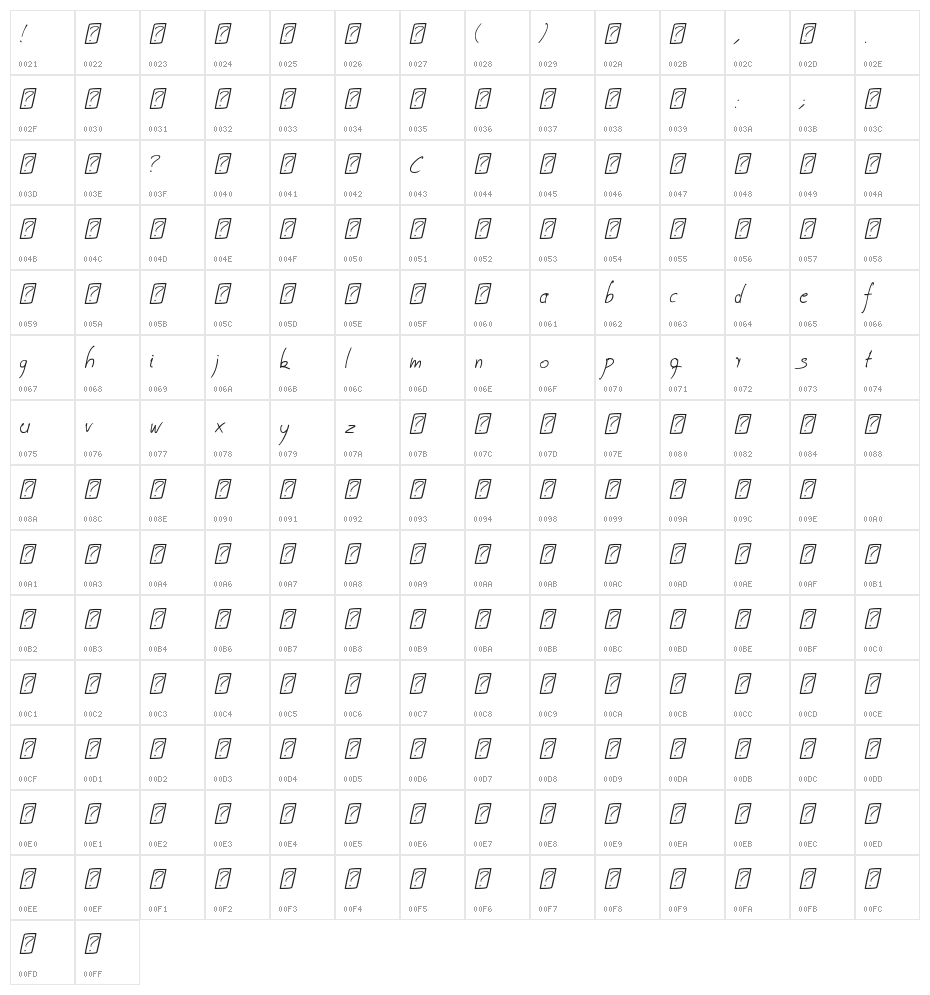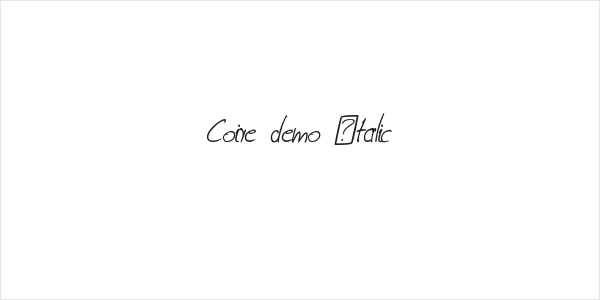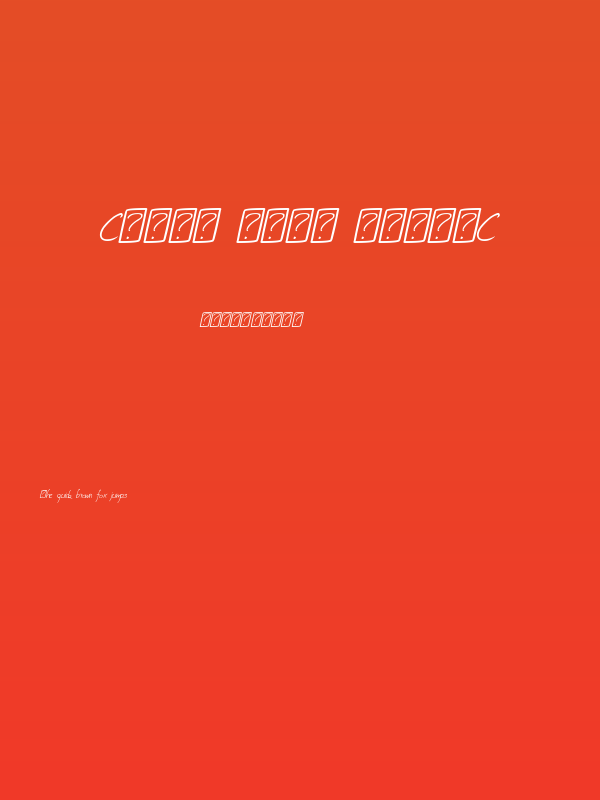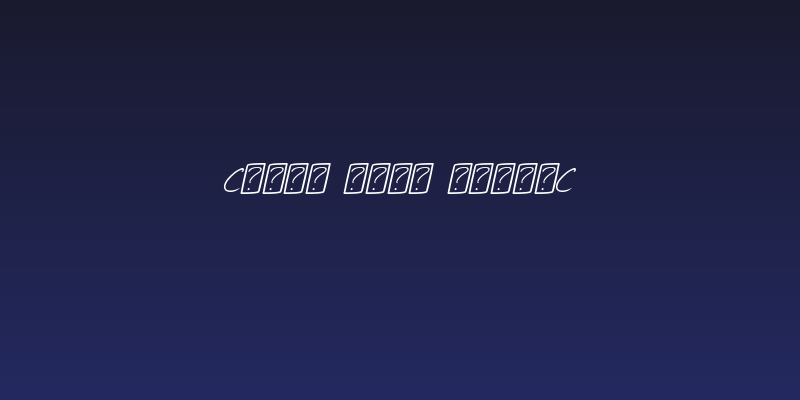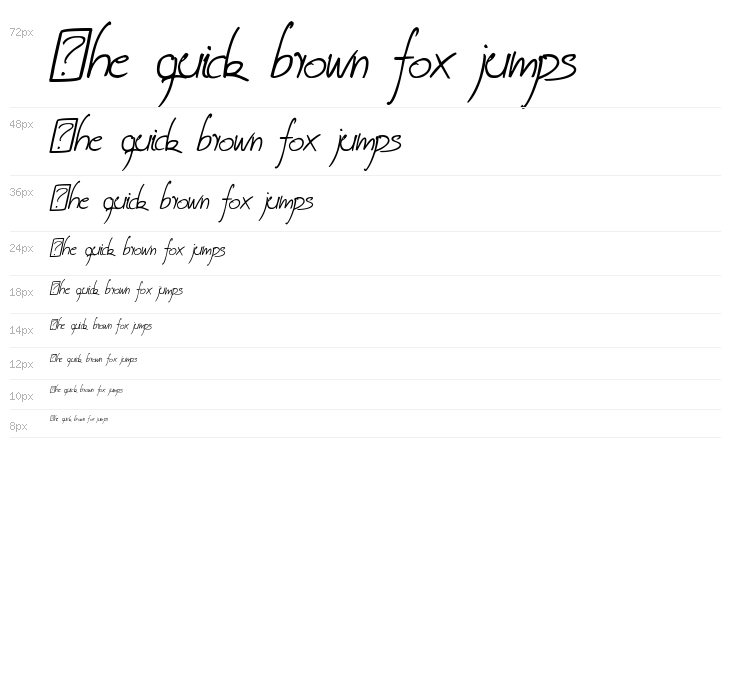
Coire demo Italic Font
Coire demo Italic Description
This font features a flowing, cursive style with elegant, sweeping lines that give it a handwritten appearance. The letters are slightly slanted, enhancing the italicized look, and each character is crafted with a consistent stroke width, providing a harmonious and balanced appearance. The lowercase letters are particularly distinctive, with elongated ascenders and descenders that add to the font's graceful aesthetic. The overall design is sophisticated and artistic, making it suitable for projects that require a personal touch. The font's unique style is both modern and timeless, offering versatility for various design needs.